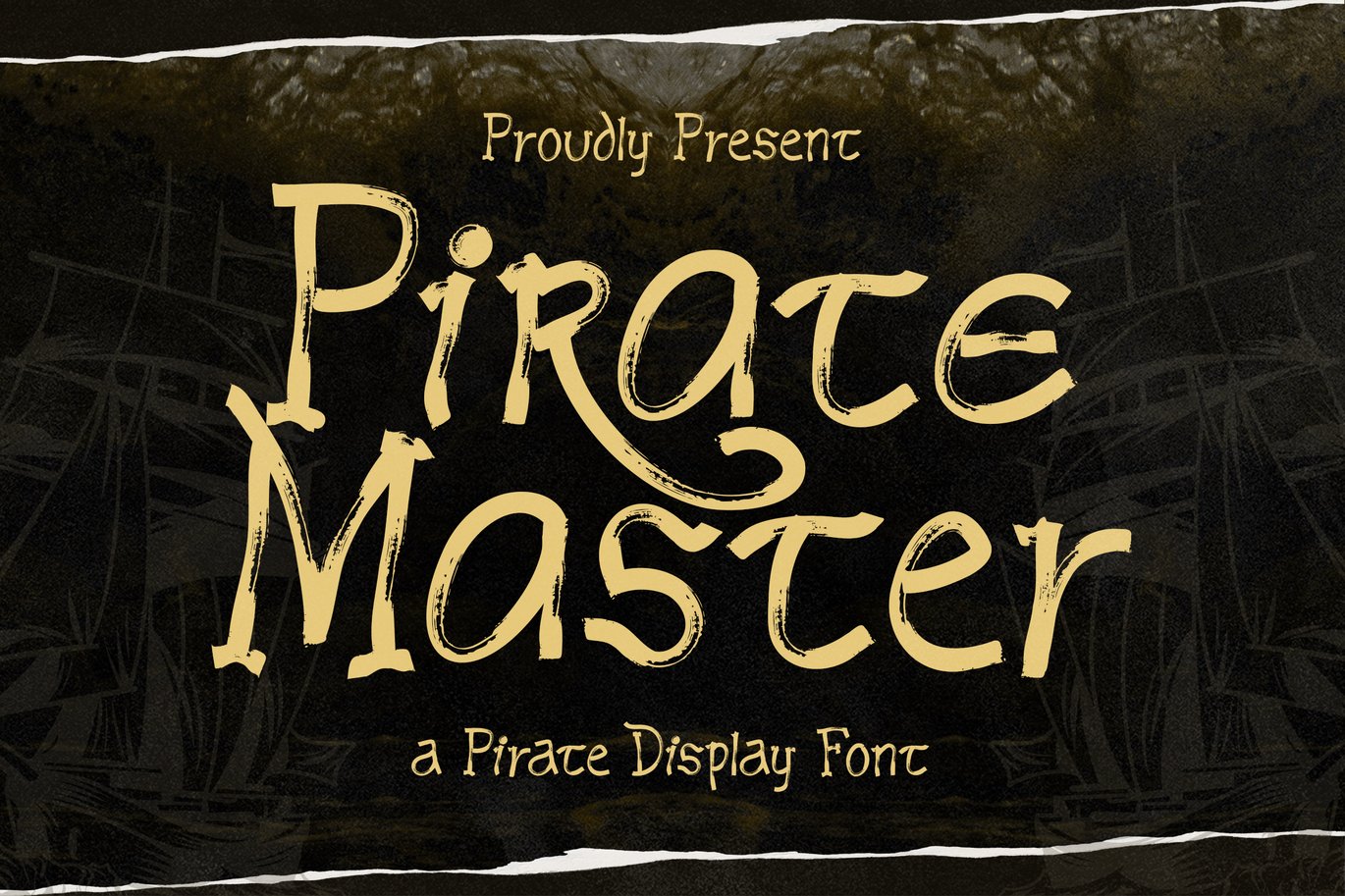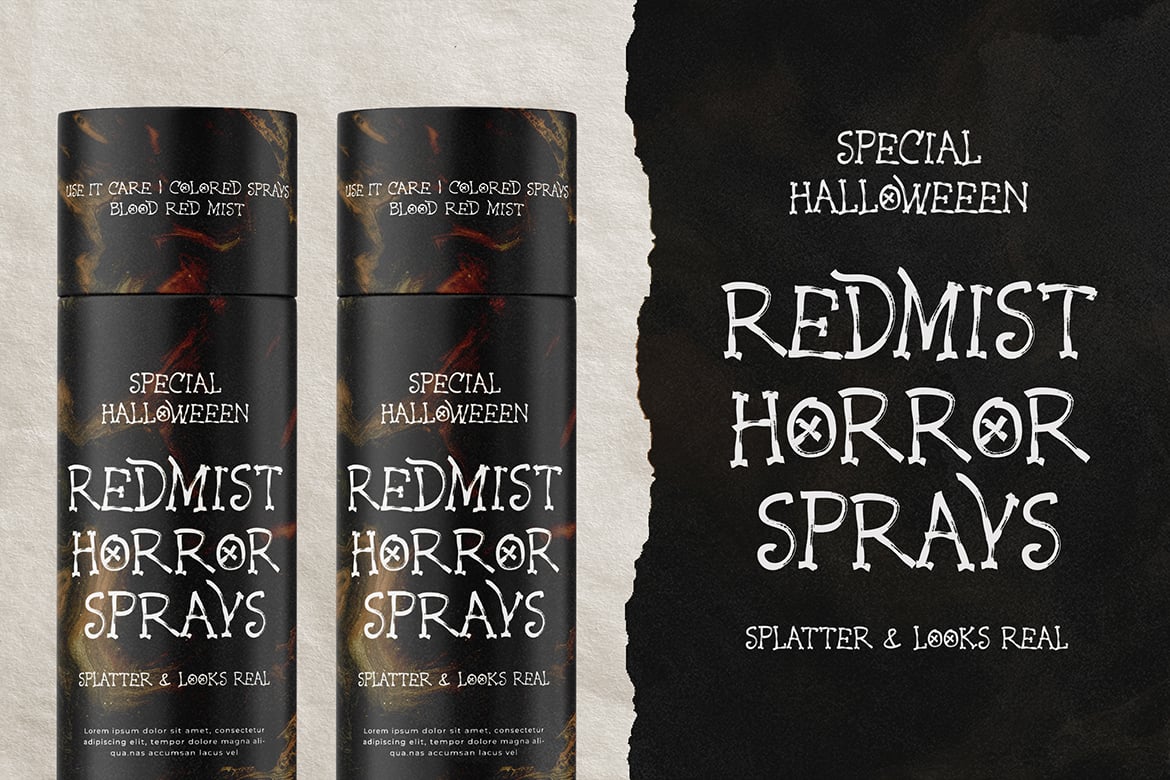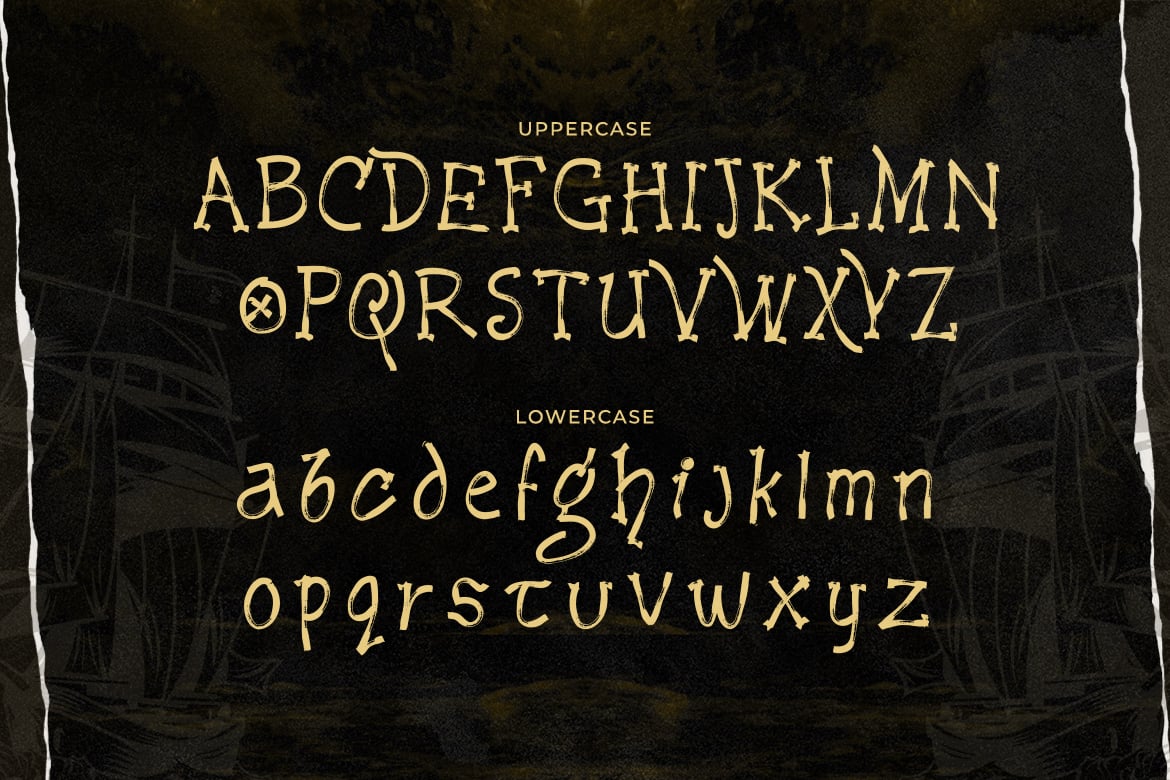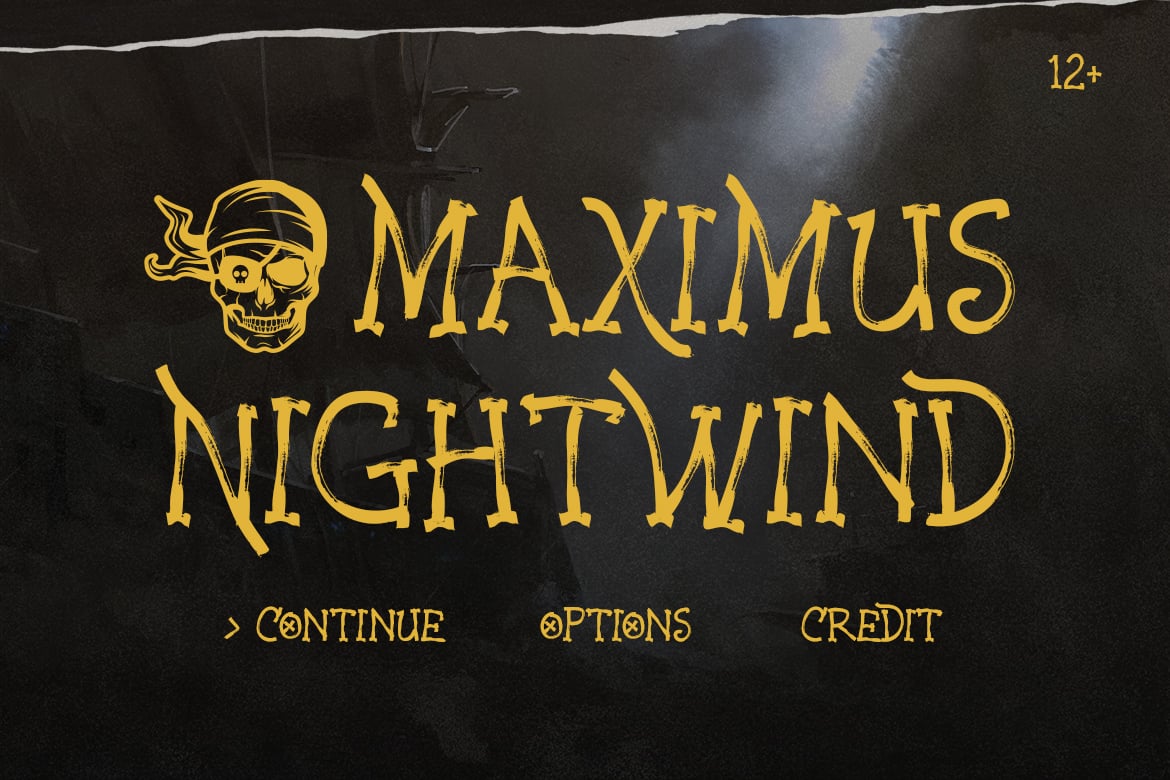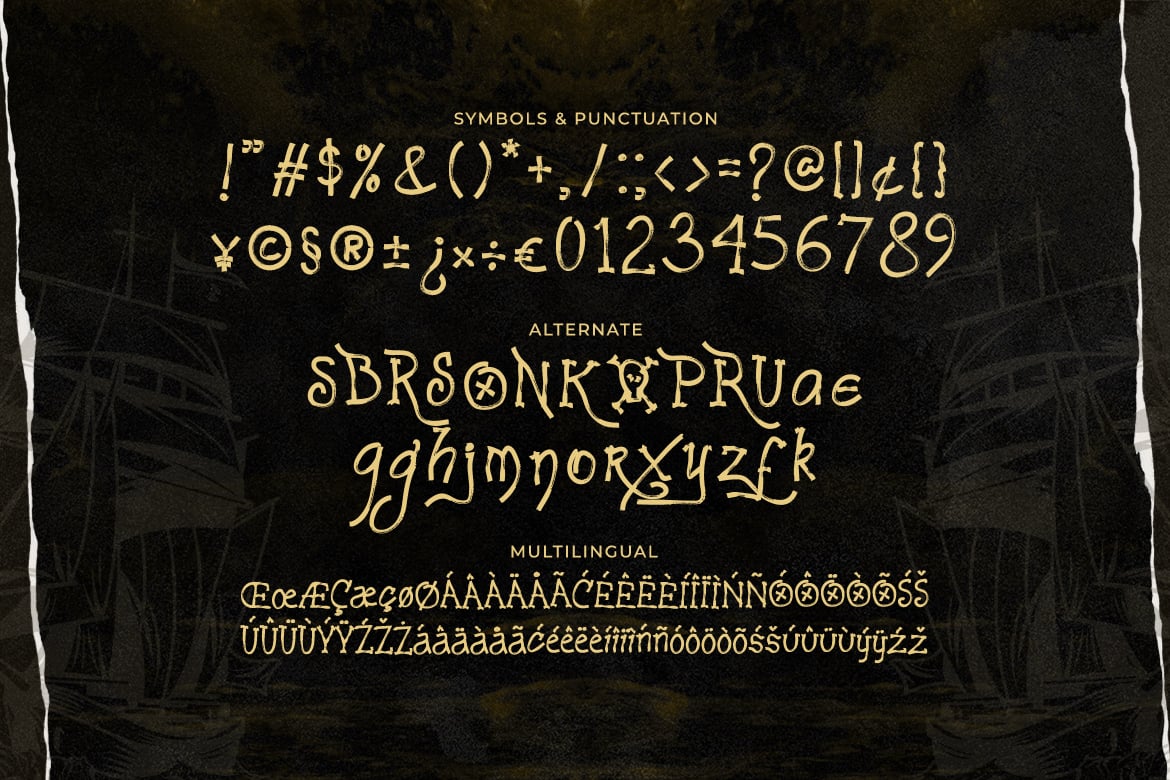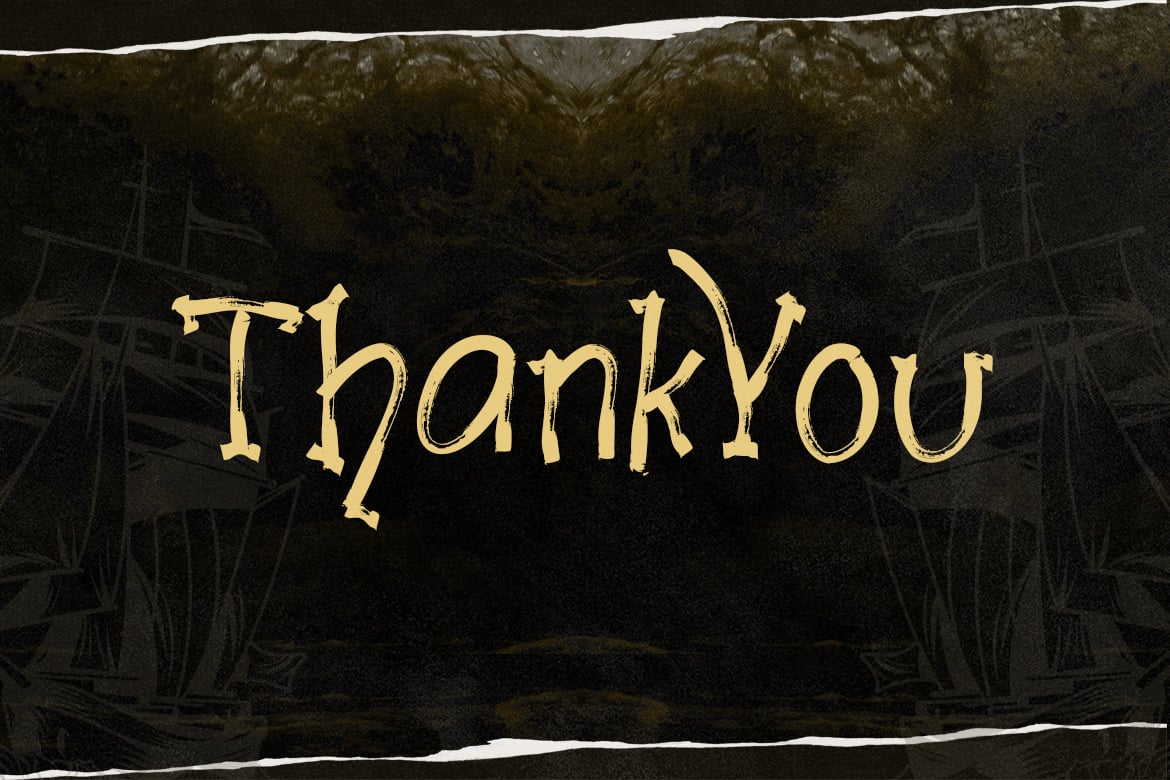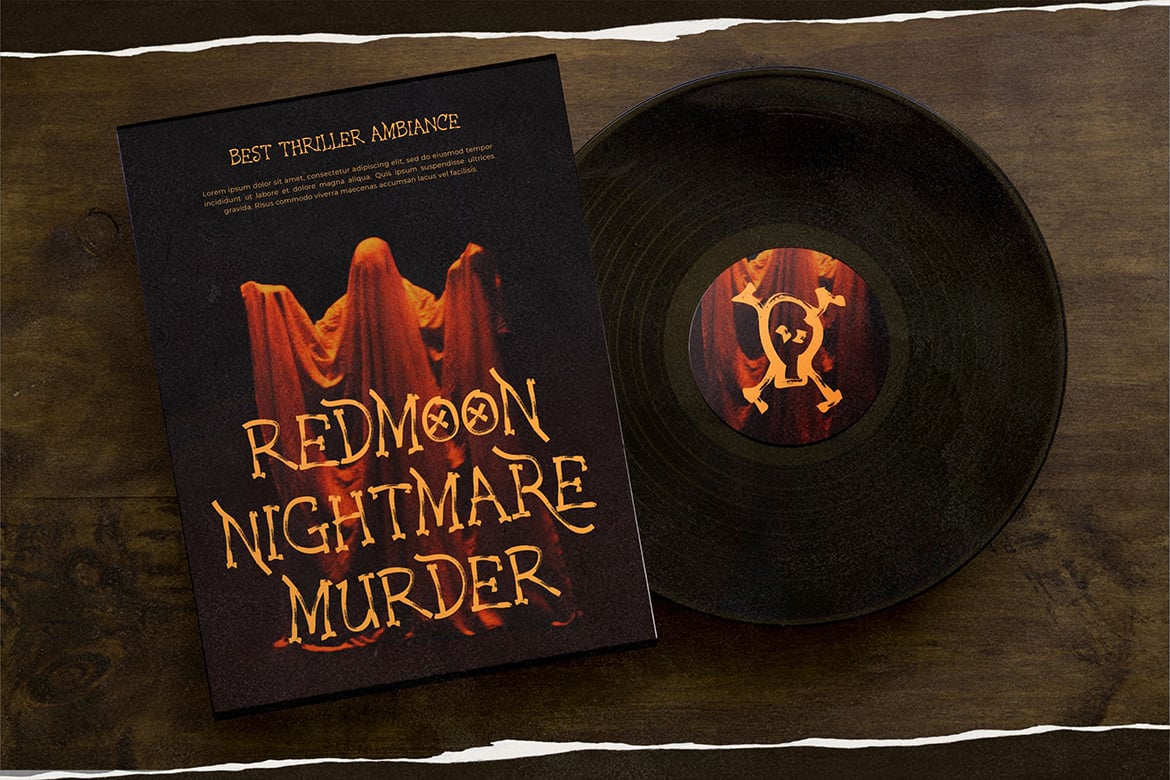
Pirate Master – A Pirate Display Font
Ahoy, matey! Set sail with “Pirate Master” – a daring pirate display font that captures the spirit of high seas adventures!
With its rugged letterforms, “Pirate Master” brings the essence of swashbuckling to your designs. Each character is meticulously crafted with maritime flair and a touch of mystery, making it perfect for pirate-themed posters, adventurous branding, treasure map designs, and more.
Embrace the fearless charm of “Pirate Master” as it transforms your projects into thrilling journeys. Whether you’re creating pirate party invitations, captivating game titles, ship-worthy logos, or treasure hunt clues, this font will make your designs stand out with its adventurous and captivating style.
Yo ho ho and a font full of fun – “Pirate Master” is ready to set sail with you!